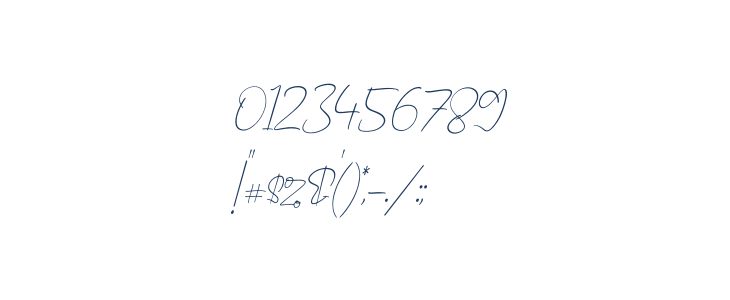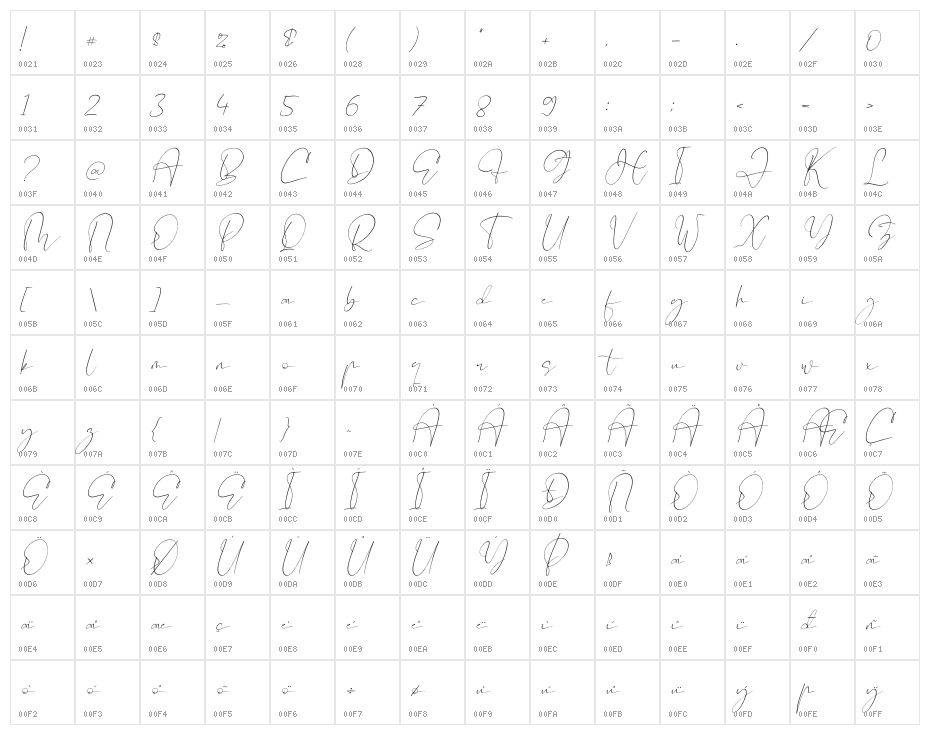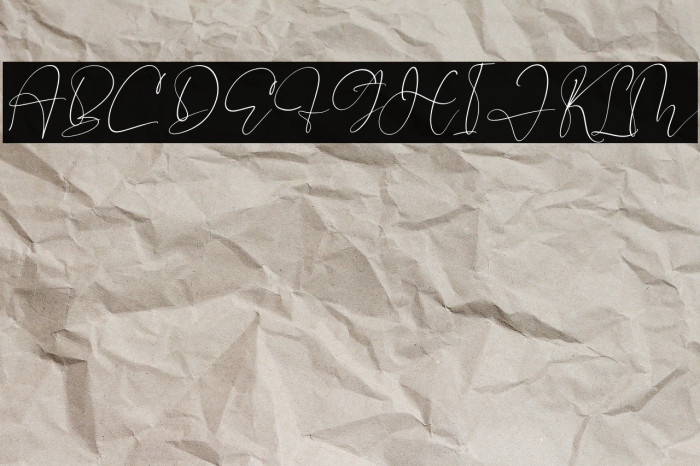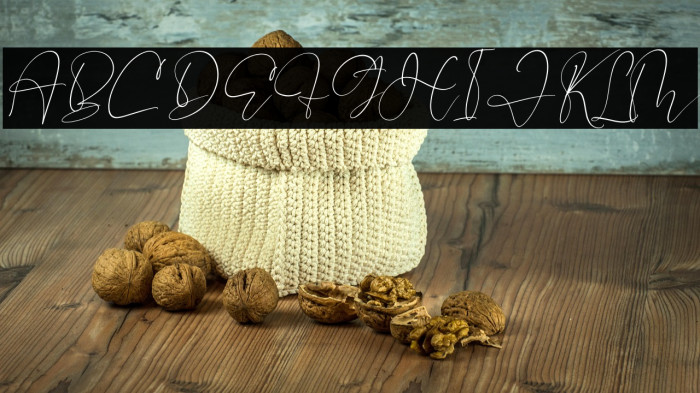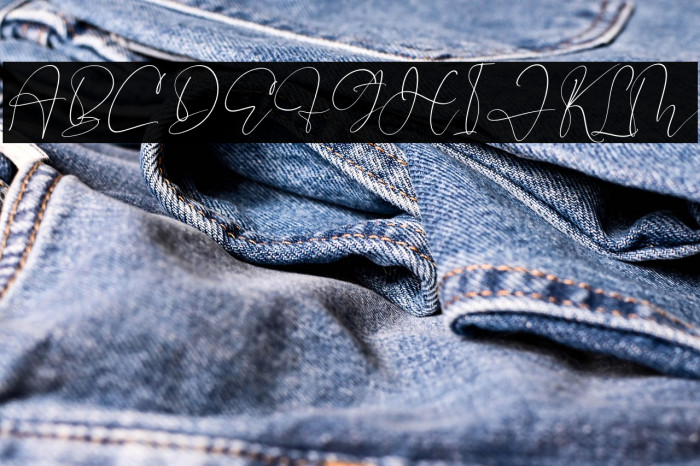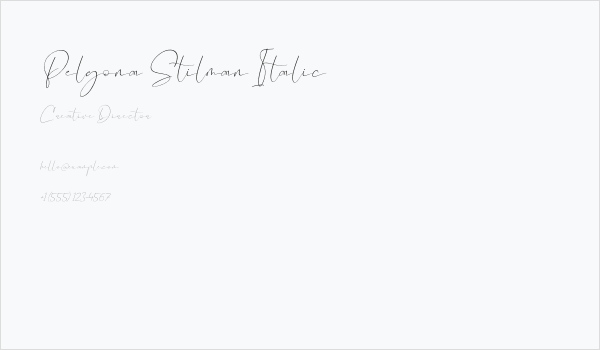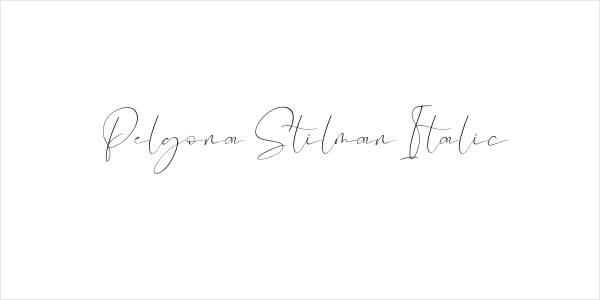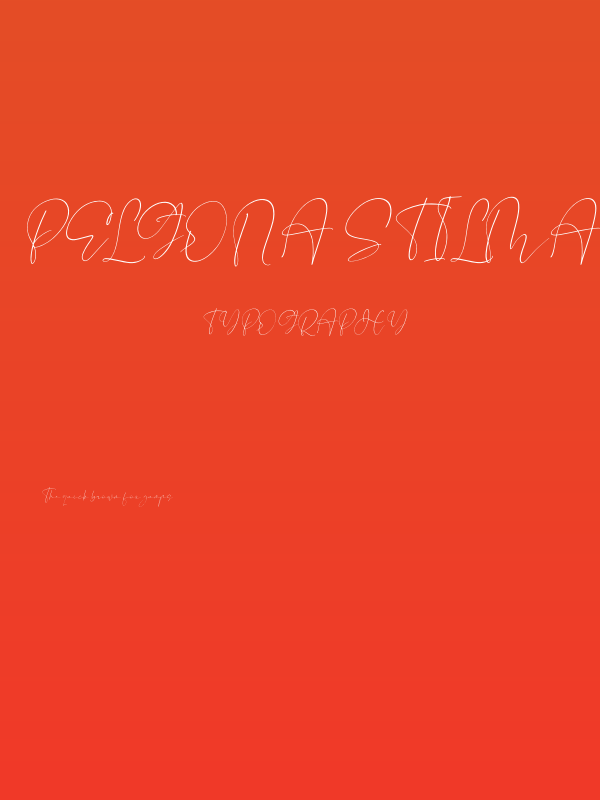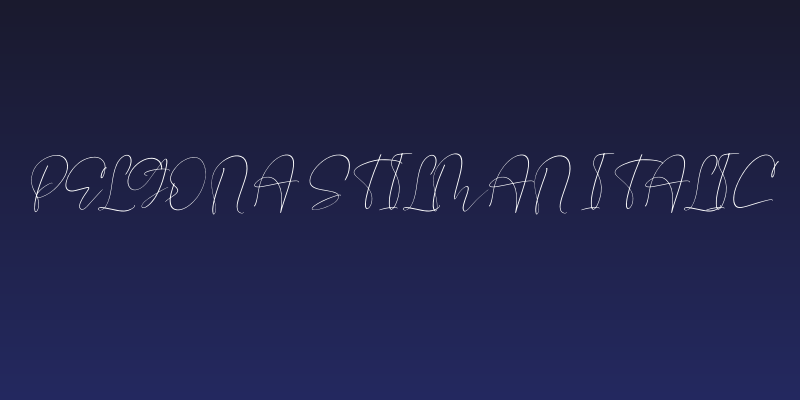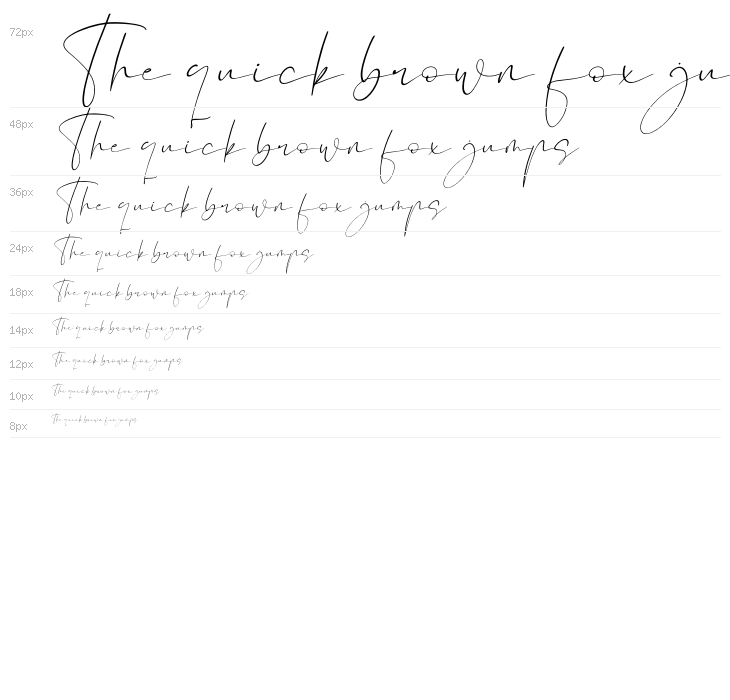
Pelgona Stilman Italic Font
Pelgona Stilman Italic Description
This elegant script font features a flowing, cursive style with delicate, interconnected strokes. The uppercase letters are tall and graceful, while the lowercase letters maintain a consistent, smooth flow. The numerals are stylishly integrated, matching the overall aesthetic with their curved lines. Special characters are thoughtfully designed to complement the script's fluidity. This font exudes sophistication and charm, making it ideal for projects that require a touch of elegance.
| Proposed Projects | Ideal for wedding invitations, elegant branding, personal stationery, and upscale packaging. |